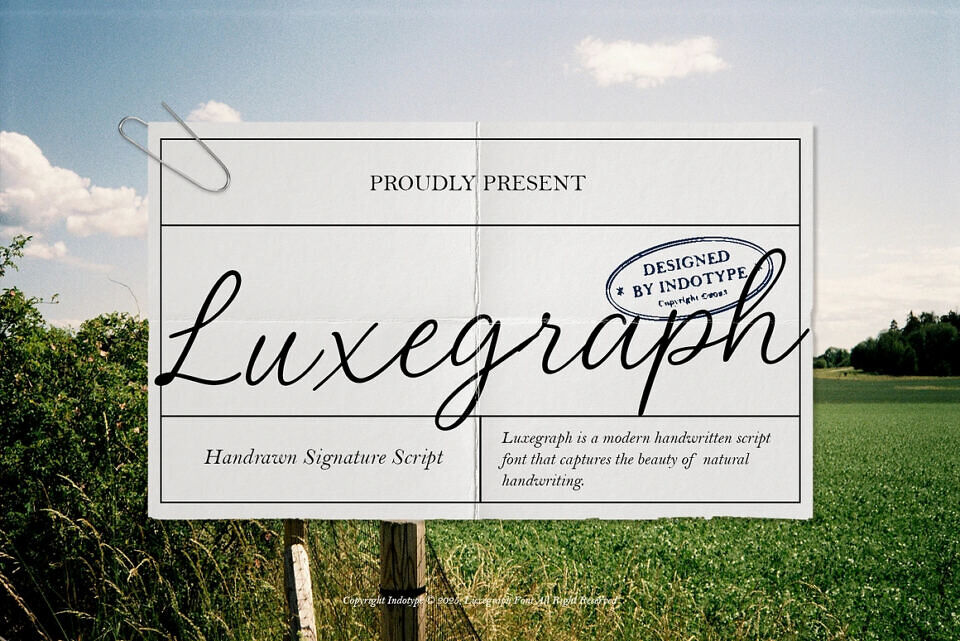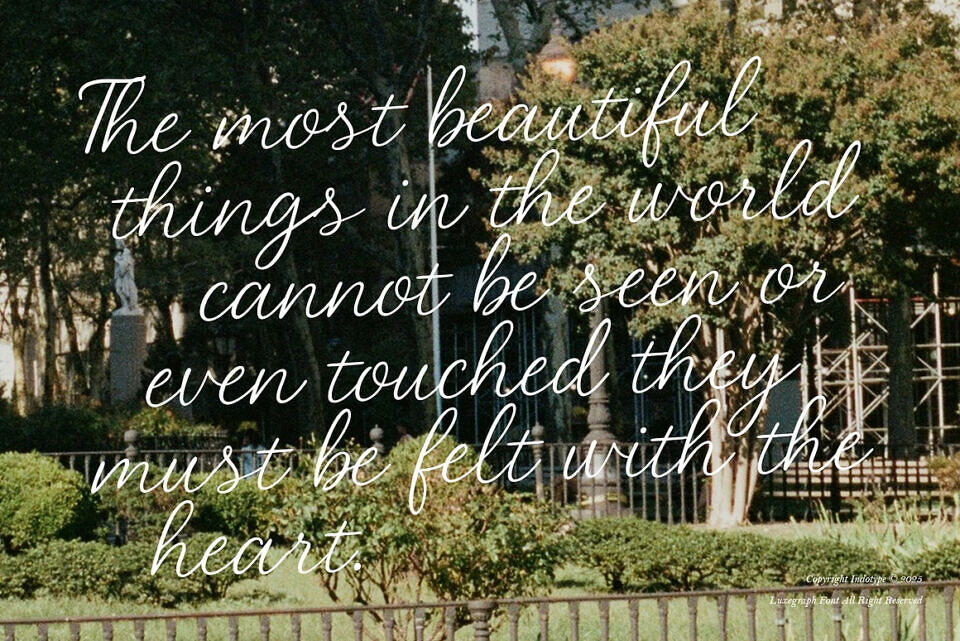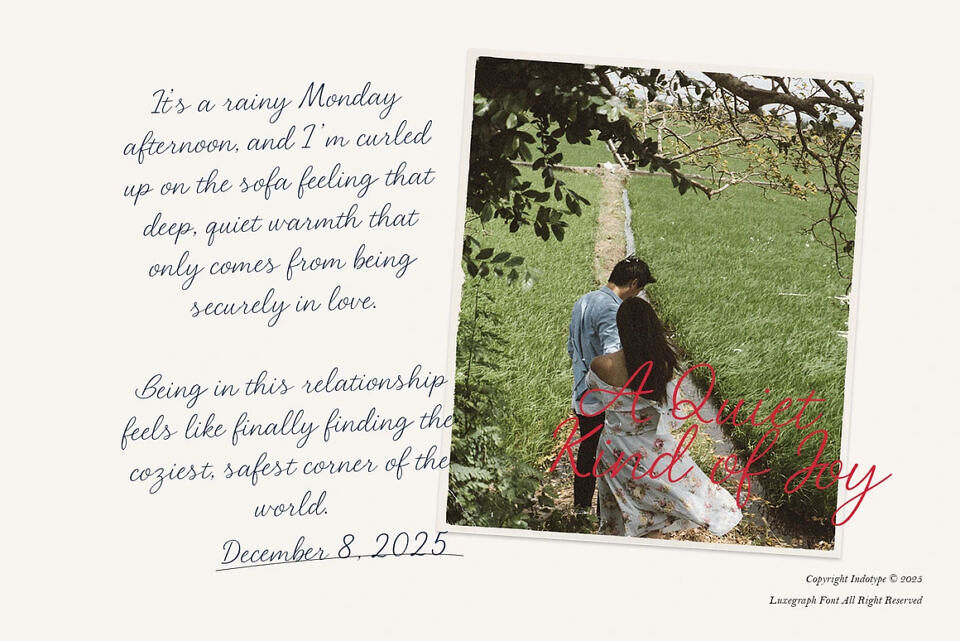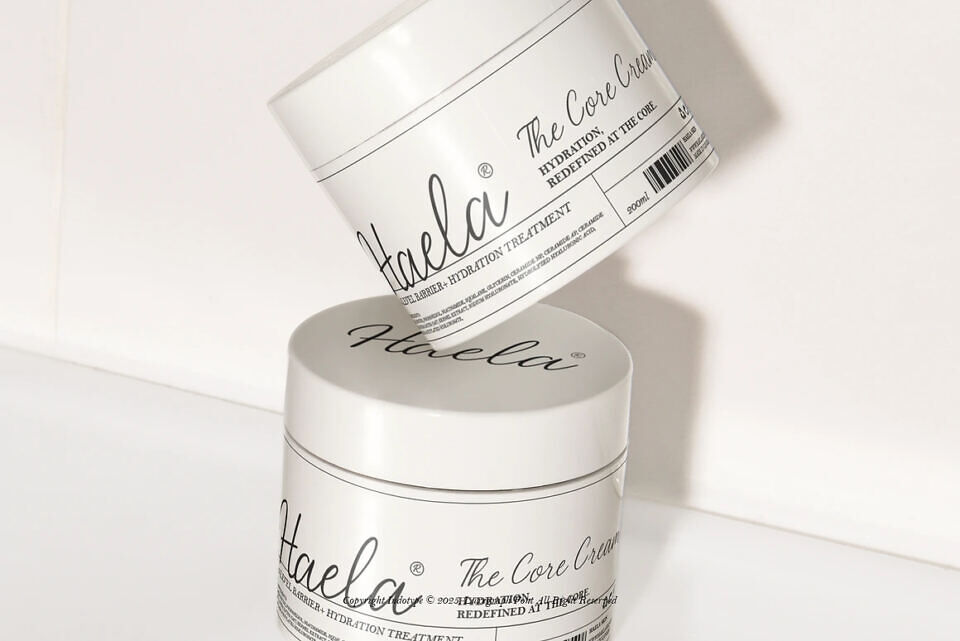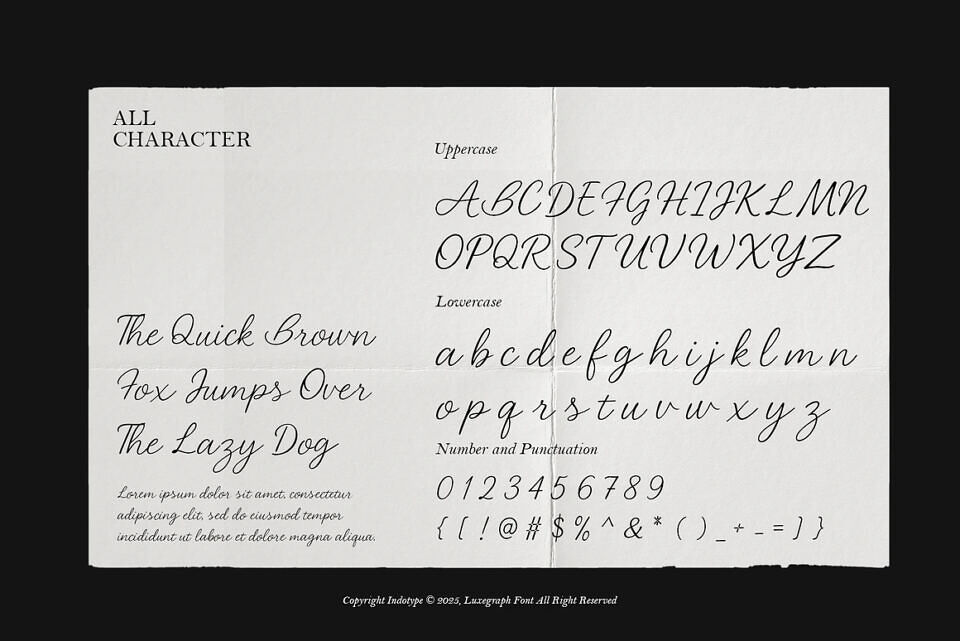
Luxegraph is an elegant and fluid handwritten script font that captures the effortless beauty of a personal signature. Designed with natural variations, graceful connections, and authentic stroke textures, it mimics the intimate feel of pen-on-paper, adding a touch of human sophistication to any design.
This modern script strikes the perfect balance between casual charm and refined elegance, making it feel both personal and premium. Ideal for branding that values authenticity and a human touch, Luxegraph elevates logos, product packaging, social media quotes, wedding stationery, and personal projects.